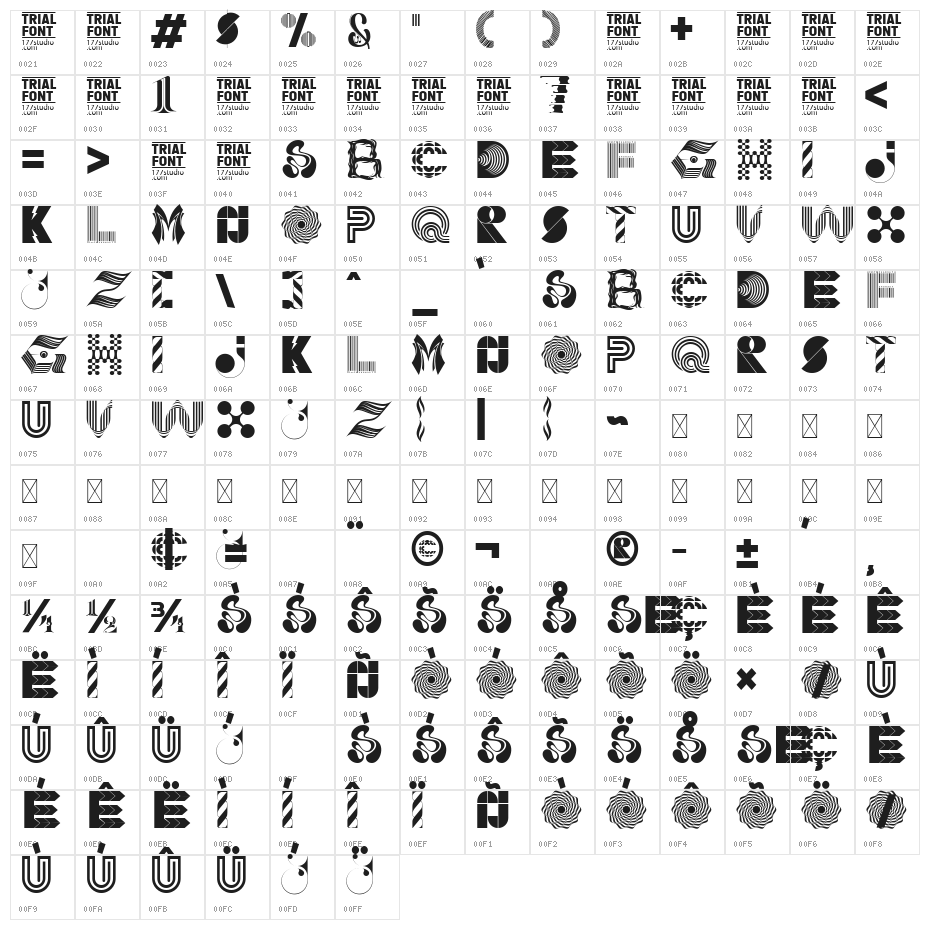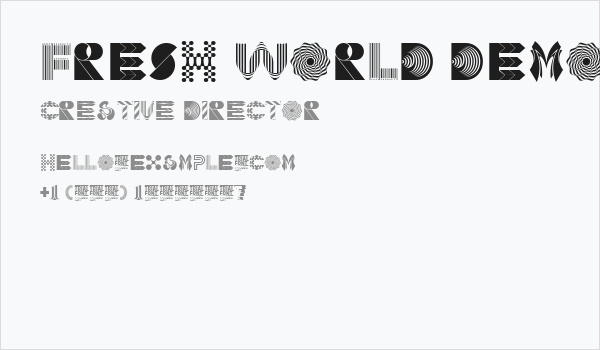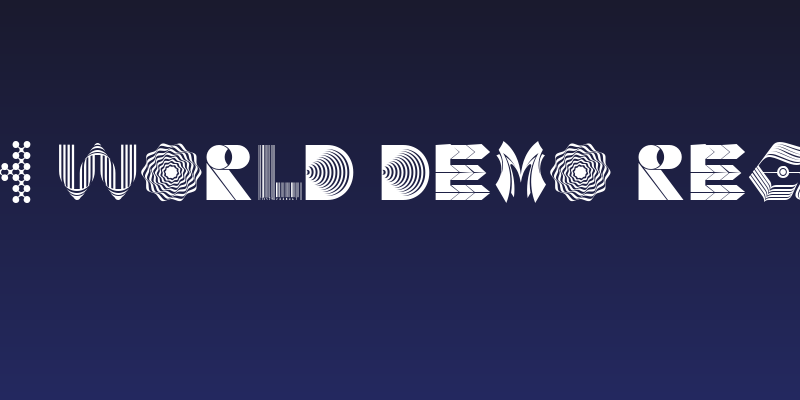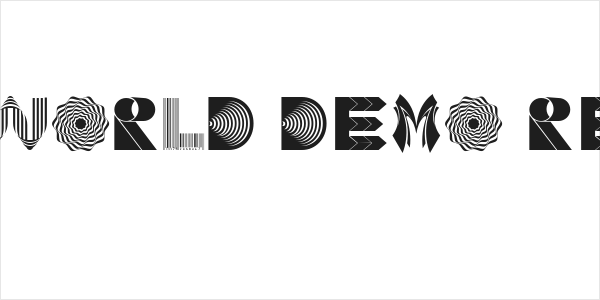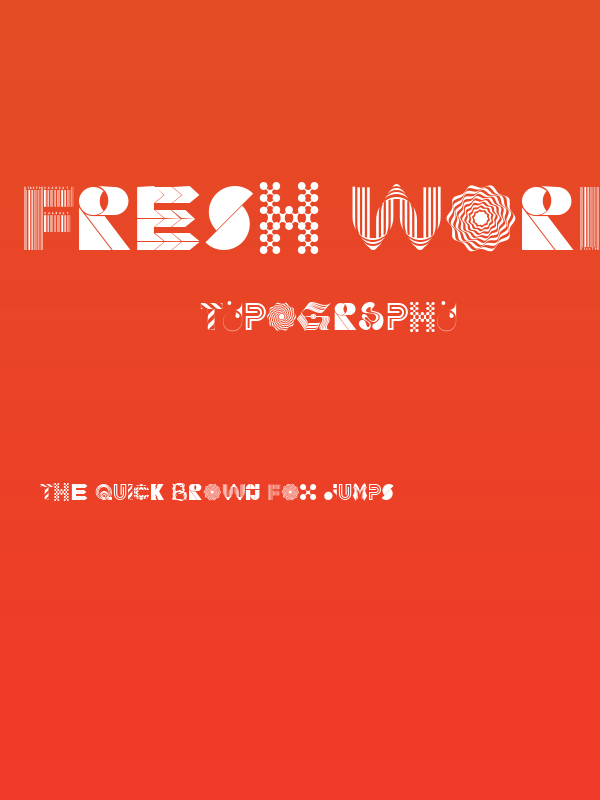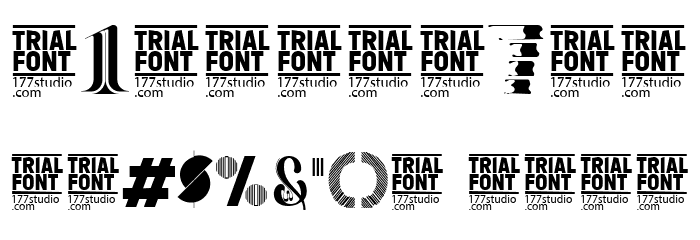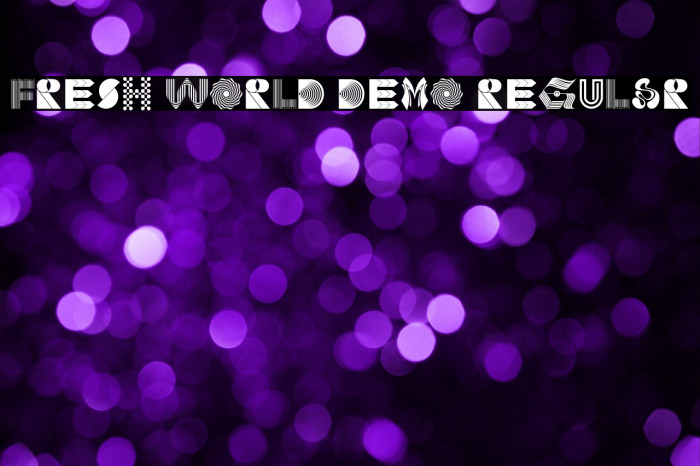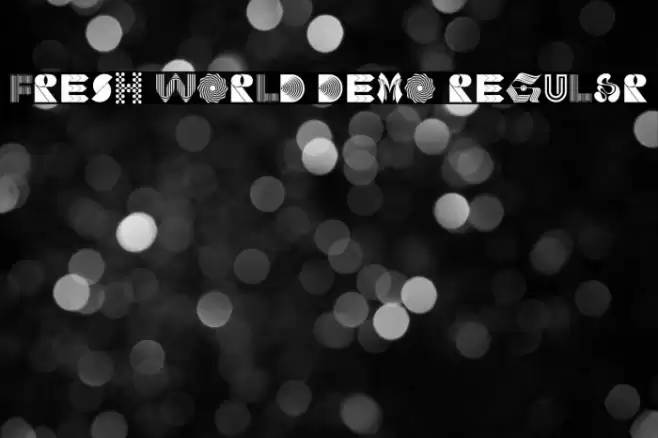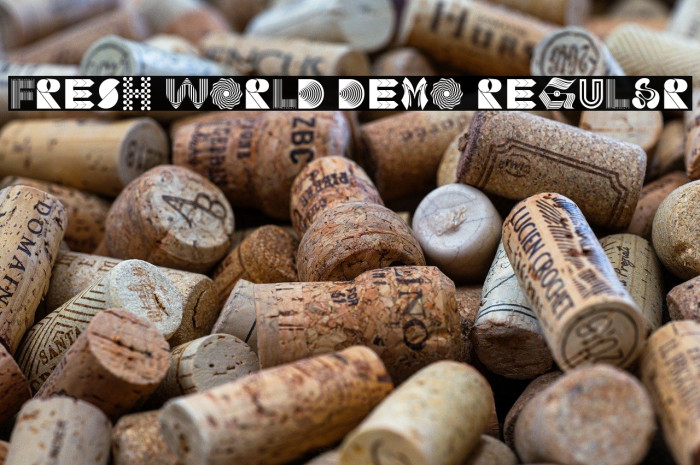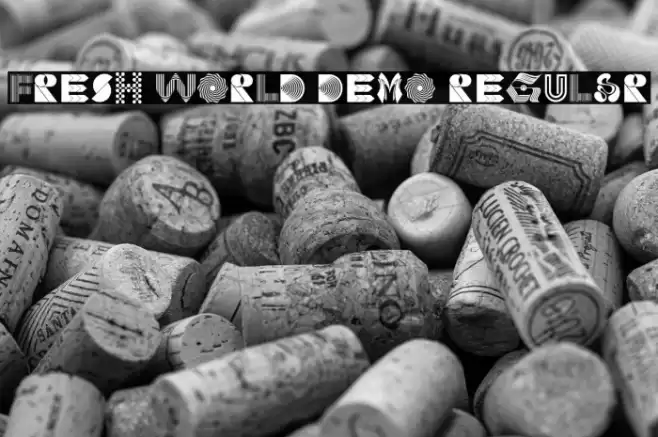
Fresh World Demo Regular Font
Fresh World Demo Regular Description
This font is a highly decorative and artistic typeface, featuring a variety of intricate patterns and designs within each character. The uppercase letters are bold and eye-catching, with unique elements such as stripes, dots, and geometric shapes integrated into their forms. The font exhibits a playful and experimental style, making it ideal for creative projects that require a standout visual element. The characters are designed with varying levels of complexity, offering a dynamic and engaging appearance. This font is perfect for projects that aim to capture attention and convey a sense of modern artistry.
| Overall Style | Modern, Artistic |
| Proposed Projects | Ideal for posters, album covers, branding materials, and any project needing a creative and standout typeface. |